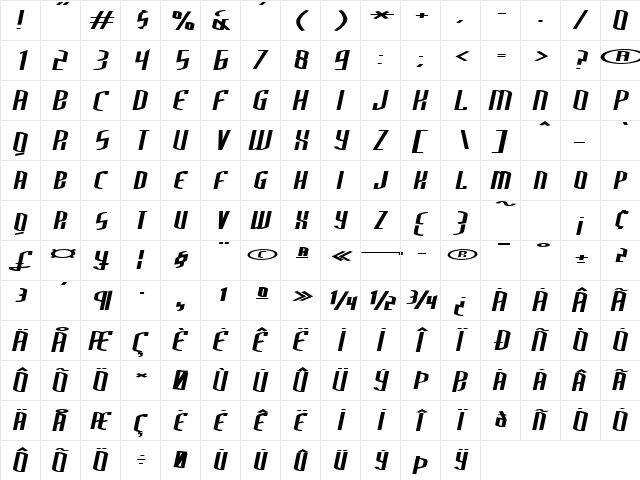
ThirdGenerationExtended Italic
Design Context for ThirdGenerationExtended Typeface
ThirdGenerationExtended offers clean, dependable letterforms without strong stylistic allegiance, making it a practical choice for designers who need flexibility. The dynamic lean of this cut emphasises speed and emphasis in any layout.
Pro Tip: Use ThirdGenerationExtended for emphasis, pull quotes, and subheadings where its slanted energy can add rhythm to the layout.